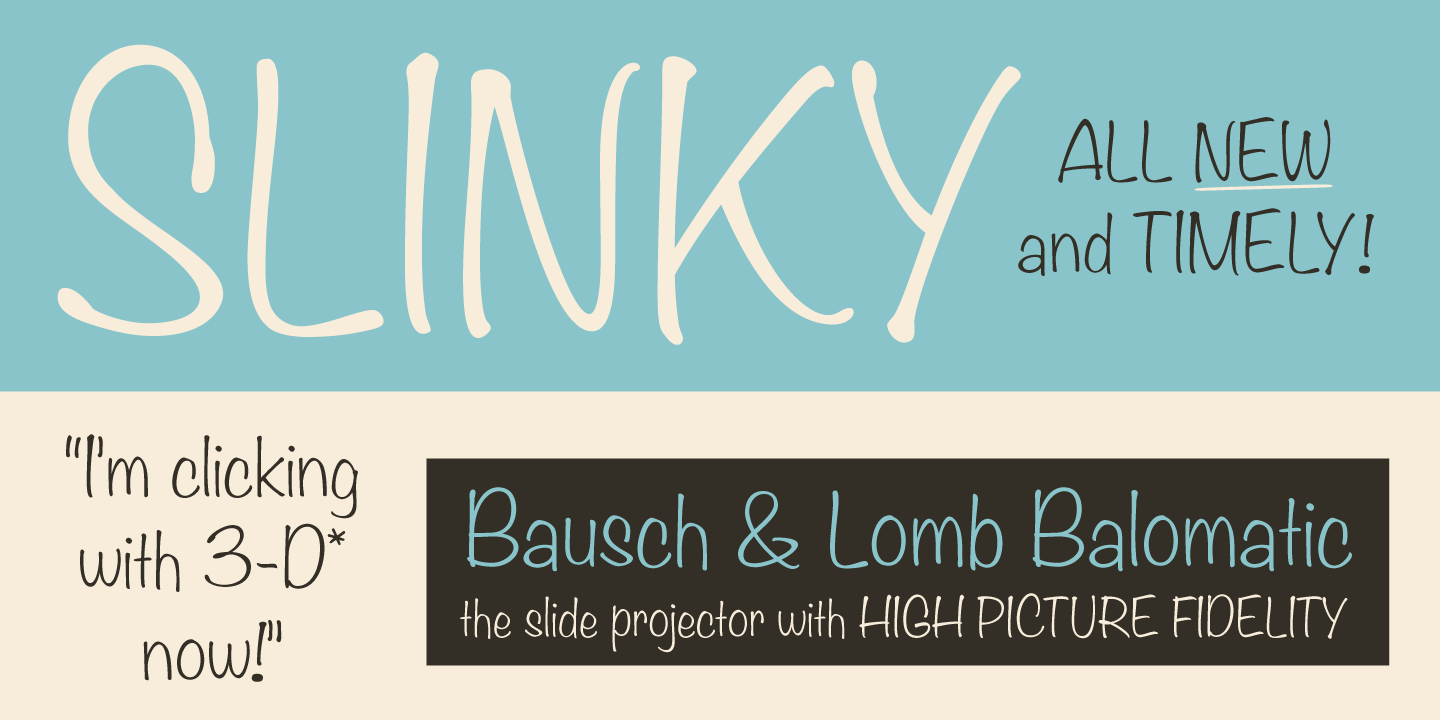
About Filmotype Alice
Filmotype Alice marks the beginnings of the casual handwritten script aesthetic. Introduced by Filmotype in the late 1950s, it perfectly captures the mid-century playfulness of hand lettering while providing comfortable readability. Filmotype Alice was…